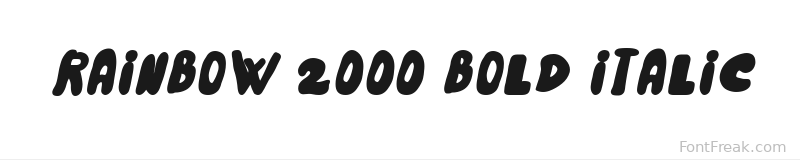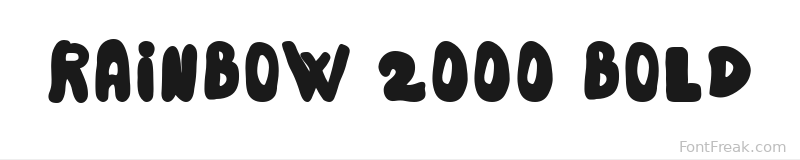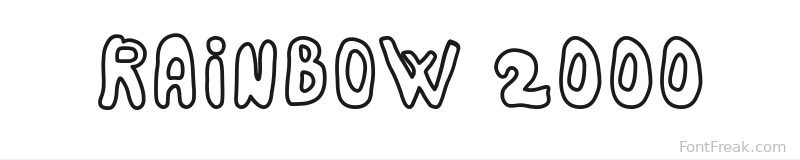
Rainbow 2000 Italic
Rainbow 2000 Bold
Rainbow 2000 Bold Italic
Rainbow 2000
Rainbow 2000 Italic by GGBot is a striking display font that captures the vibrant essence of the millennium. As an italicized typeface, it stands out with its playful curves and energetic style, making it perfect for projects that require a touch of whimsy and personality. The font features a bold stroke weight that enhances its visibility, combined with a slight contrast that adds depth to the characters. The spacing is generous, allowing each letter to breathe while maintaining a cohesive look. Its decorative elements, inspired by a retro aesthetic, evoke a sense of nostalgia while remaining fresh and contemporary.
This font is ideal for a variety of creative applications. It shines in wedding invitations, where its unique flair can add a celebratory touch. For movie posters, Rainbow 2000 Italic can capture attention and convey a sense of fun and adventure. Restaurant menus can benefit from its bold character, making dish names pop and inviting diners to explore the offerings. Additionally, it is an excellent choice for social media graphics, where content creators can leverage its eye-catching style to engage their audience.
What sets Rainbow 2000 Italic apart is its ability to merge boldness with a playful spirit, making it a standout choice for anyone looking to inject energy into their designs. With a Rainbow 2000 Italic font free download available, you can easily incorporate this unique typeface into your next creative endeavor.